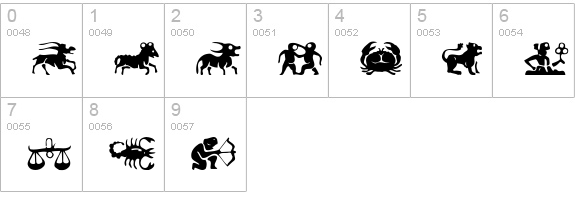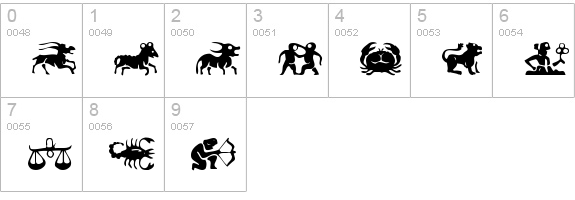
Eileens Zodiac Font Details
Eileen's Zodiac font is a stunning and unique typeface that combines elegance with a touch of mystique. Each letter is intricately designed to represent the twelve signs of the zodiac, making it perfect for astrology enthusiasts or anyone looking to add a celestial flair to their projects. This eye-catching font features intricate details and flowing lines that capture the essence of each zodiac sign beautifully. Whether you're creating a horoscope-themed design or simply want to add a touch of cosmic charm to your work, Eileen's Zodiac font is sure to make a statement. The best part? Eileen's Zodiac font is completely free to download at FontsMarket.com. With just a few clicks, you can add this enchanting font to your collection and start using it in your projects right away. Don't miss out on the opportunity to elevate your designs with this captivating and mystical typeface. Download Eileen's Zodiac font today and let the stars align in your favor.